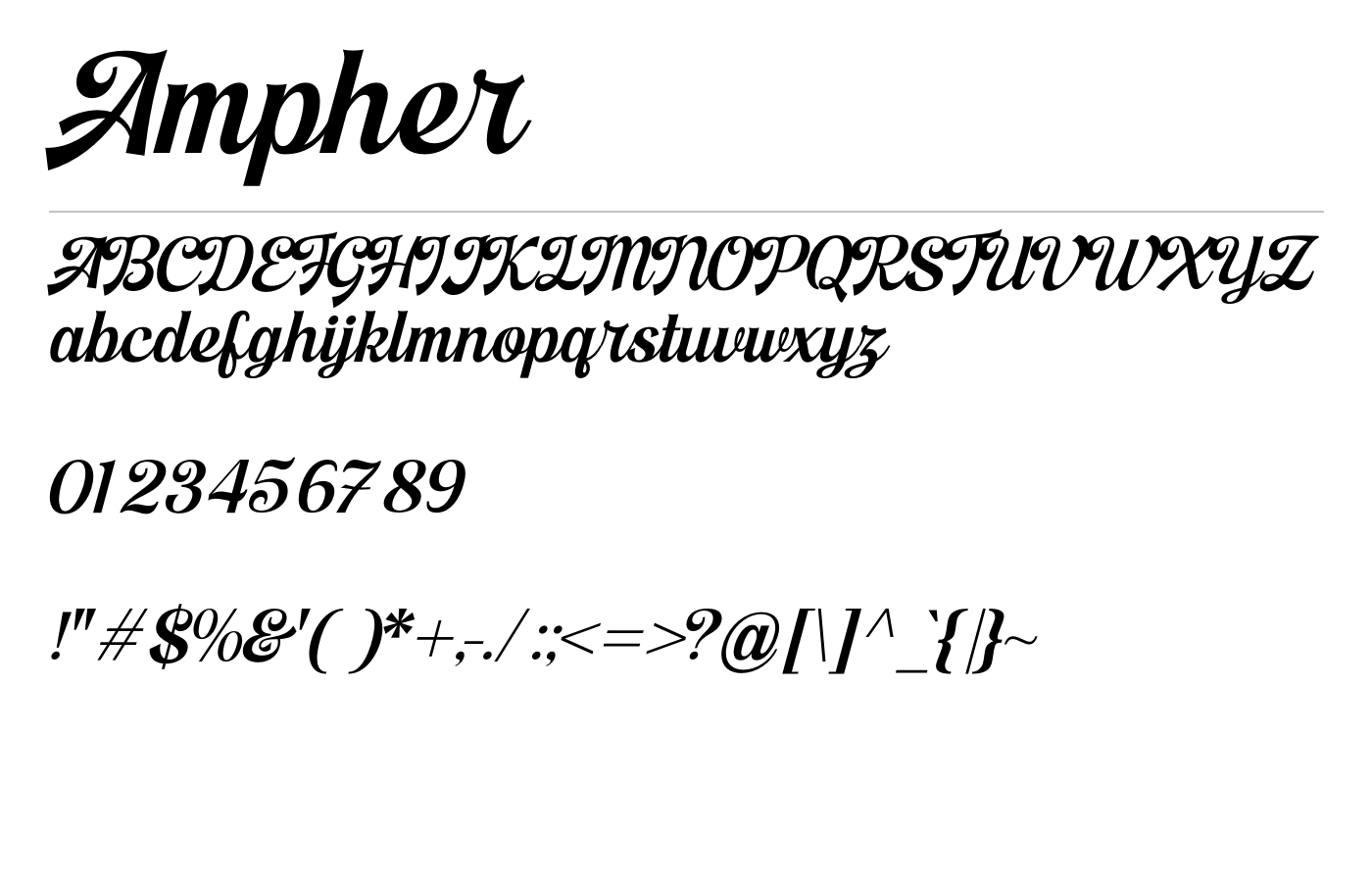
Ampher is an elegant serif font with a distinct calligraphic flair, featuring smooth, flowing strokes and moderate contrast between thick and thin lines. Its italicized style and slightly condensed letterforms give it a graceful, sophisticated personality, making it ideal for luxury branding, invitations, and editorial headlines where a refined yet expressive look is desired. This font’s unique letter shapes and balanced spacing add to its charm, lending a timeless and artistic touch to any design.
Ampher Font
About Ampher Font
| Font family | Ampher Font |